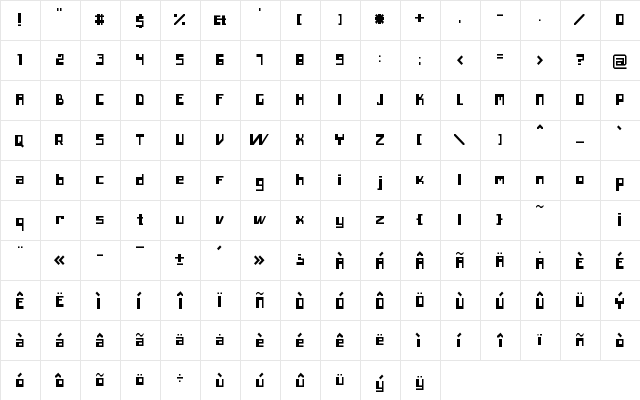
Inero Regular
| Designer | Staffan Vilcans |
Design Context for Inero Typeface
Inero takes a measured approach to typography — its balanced proportions and neutral character make it a reliable workhorse for both digital and print work.